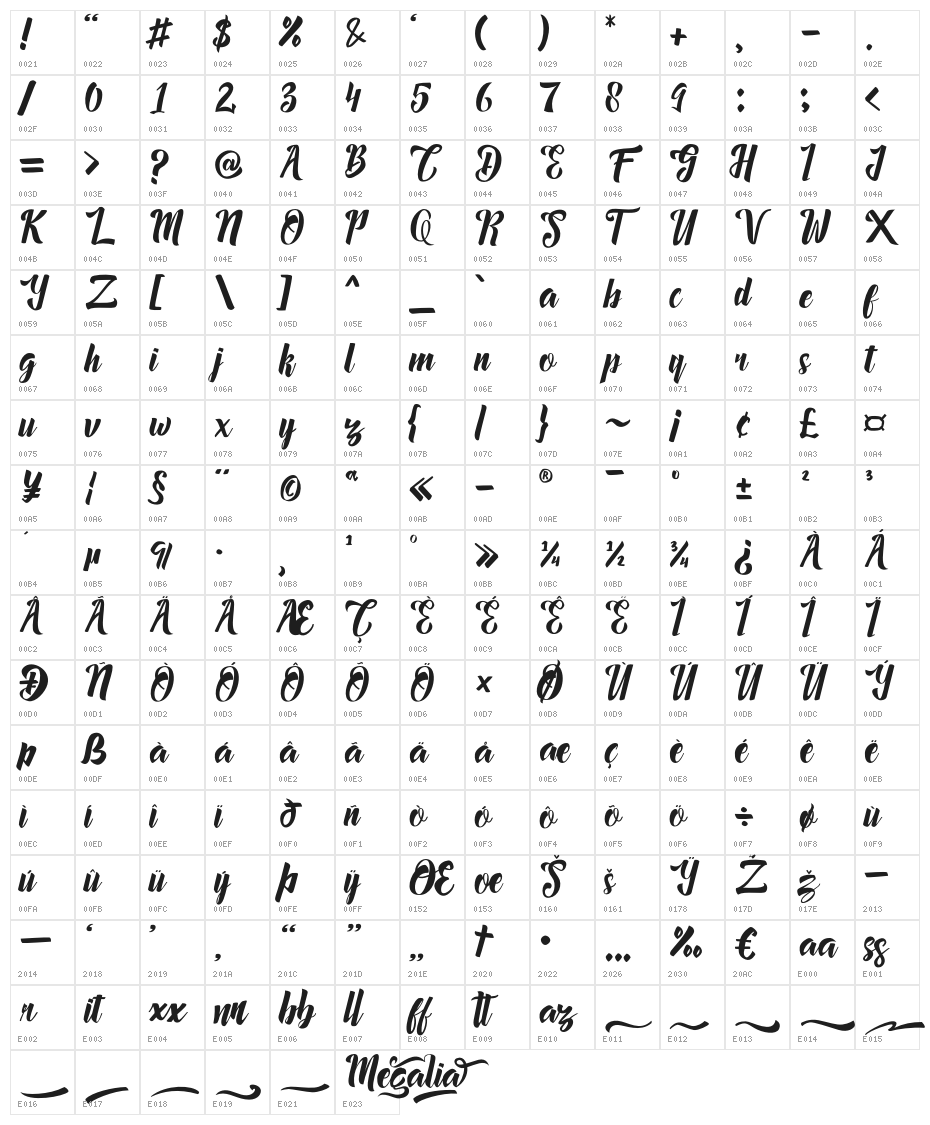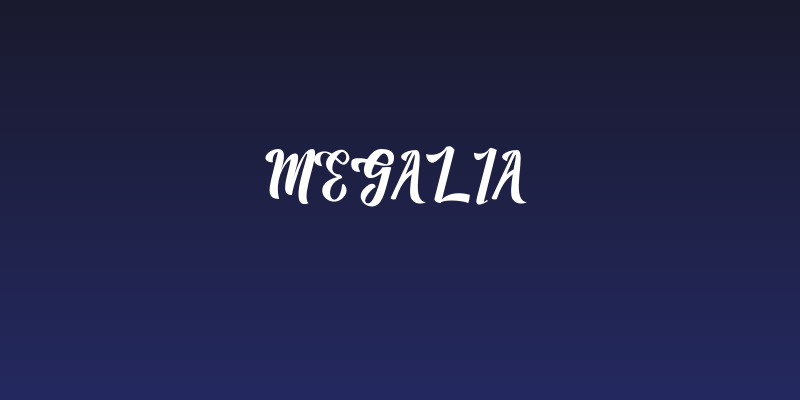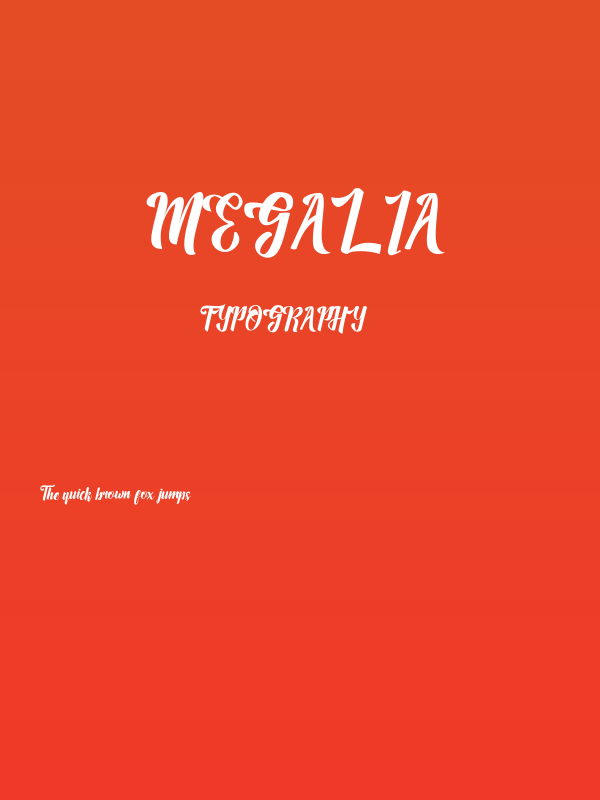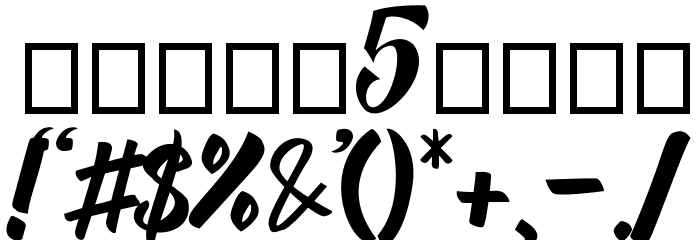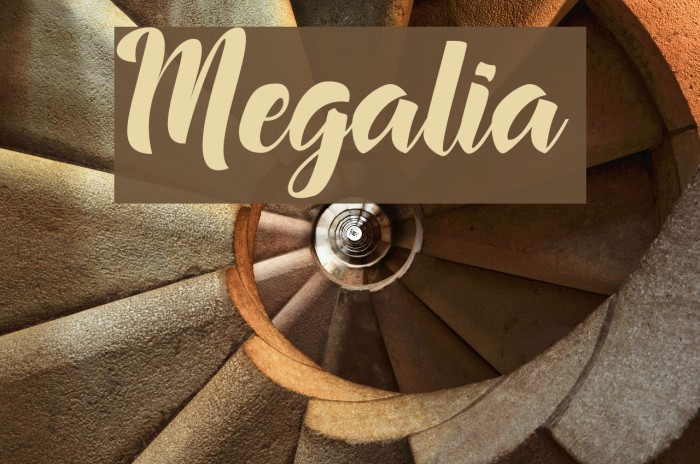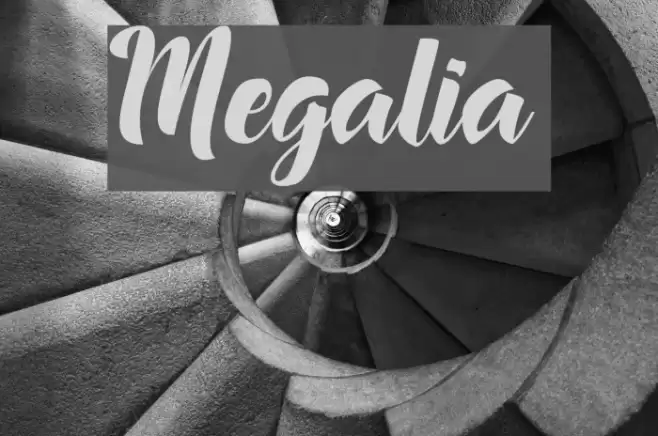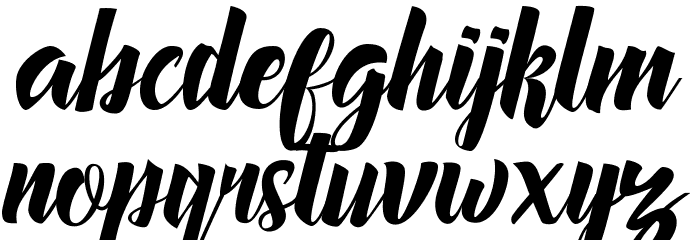
Megalia Font
Megalia Description
This font features a bold and expressive script style, characterized by its flowing and connected letterforms. The uppercase letters exhibit a dynamic and elegant flair, with sweeping curves and a sense of movement. The lowercase letters maintain a cohesive and fluid appearance, enhancing the overall aesthetic. The font's thick strokes and high contrast between thick and thin lines contribute to its dramatic and eye-catching look. It is well-suited for creative and artistic projects that require a touch of sophistication and flair. The font's unique style makes it ideal for branding, invitations, and other decorative uses.
| Use Case | Logos, Headlines, Invitations |
| Proposed Projects | Ideal for branding, invitations, artistic projects, and decorative uses. |